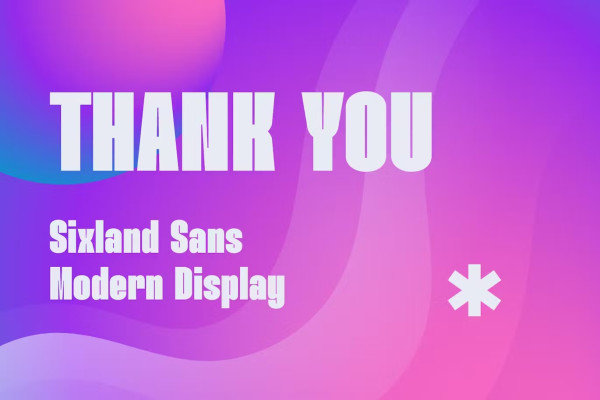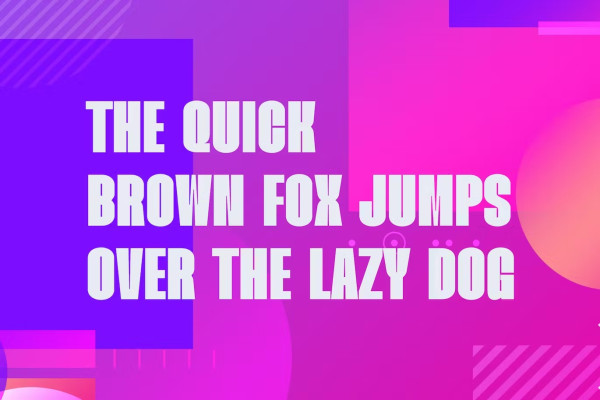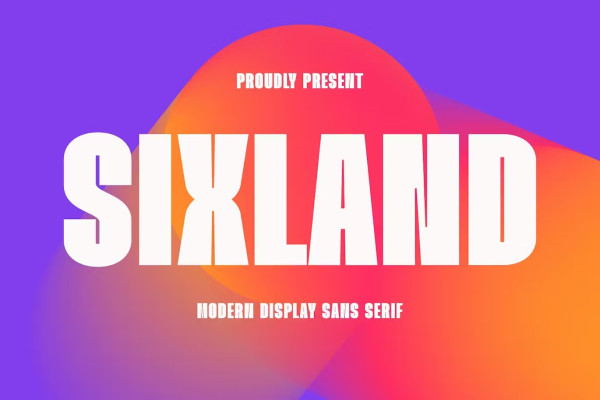
Sixland Font
Sixland Font – Modern Display Sans Serif, modern sans serif font with elegant style this is perfect for branding, logos, invitation, magazines, product packaging and more.